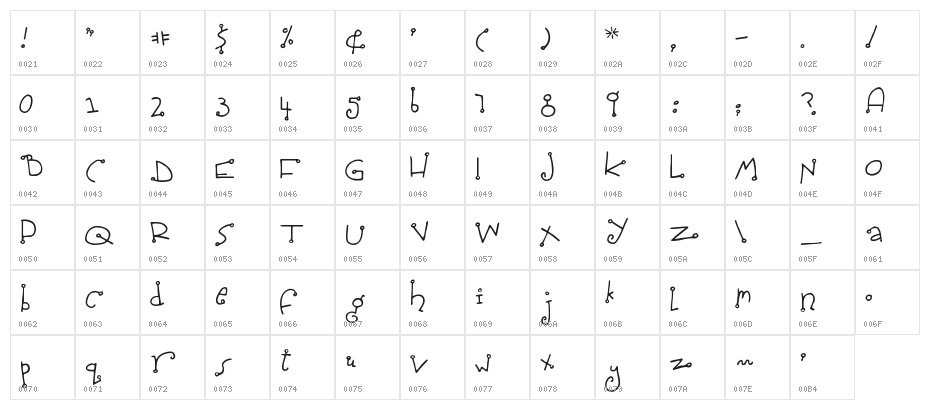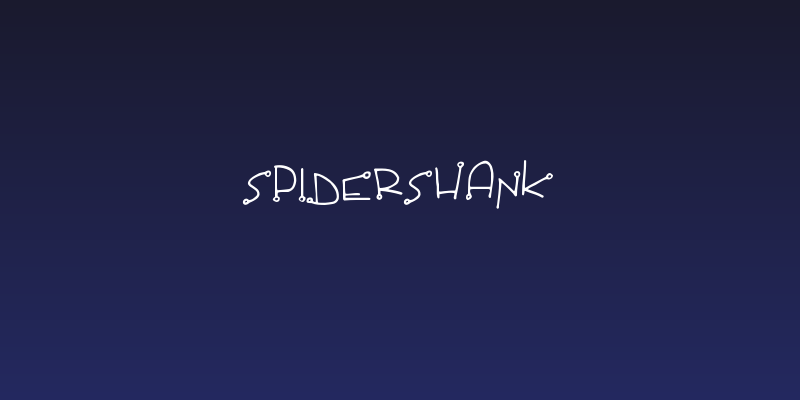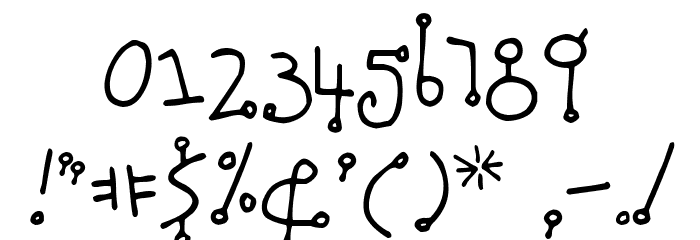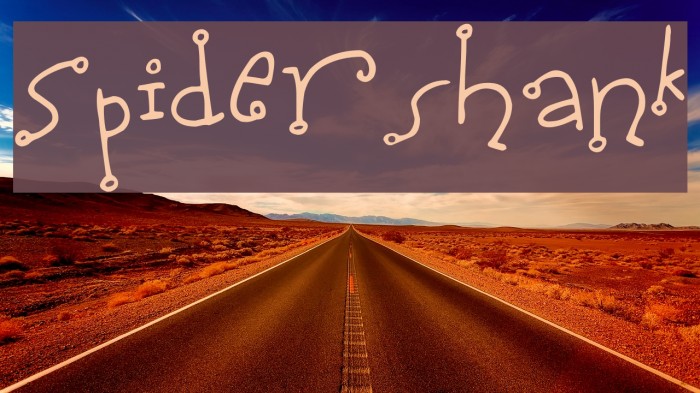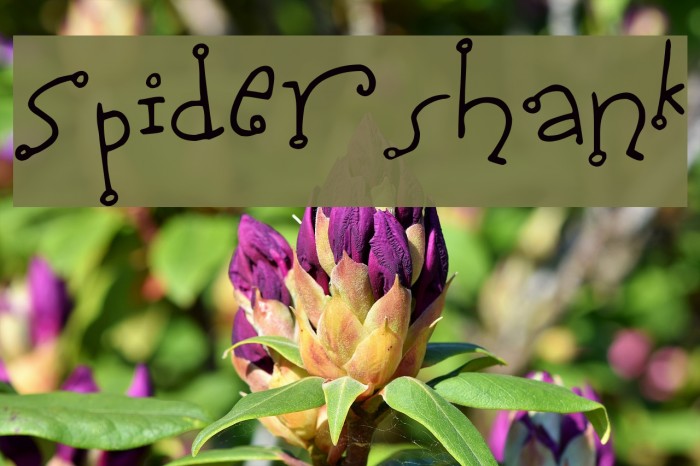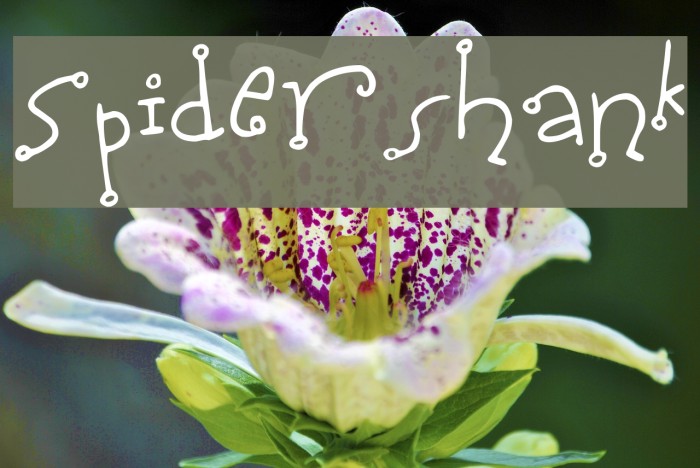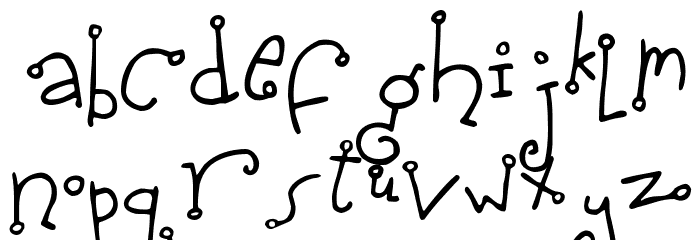
Spidershank Font
This font features a playful and whimsical design, characterized by its unique, irregular strokes and dot embellishments at the ends of each letter. The characters have a hand-drawn, organic feel, with varying line thickness that adds to its quirky charm. The uppercase and lowercase letters maintain a consistent style, with the uppercase being slightly more structured. Numbers and special characters follow the same playful theme, making this font suitable for creative and informal projects. Its distinctive style makes it stand out, offering a fun and engaging visual experience.
| Overall Style | Whimsical, Playful |
| Use Case | Logos, Posters, Creative Projects |
| Proposed Projects | Ideal for children's books, playful branding, greeting cards, and creative posters. |